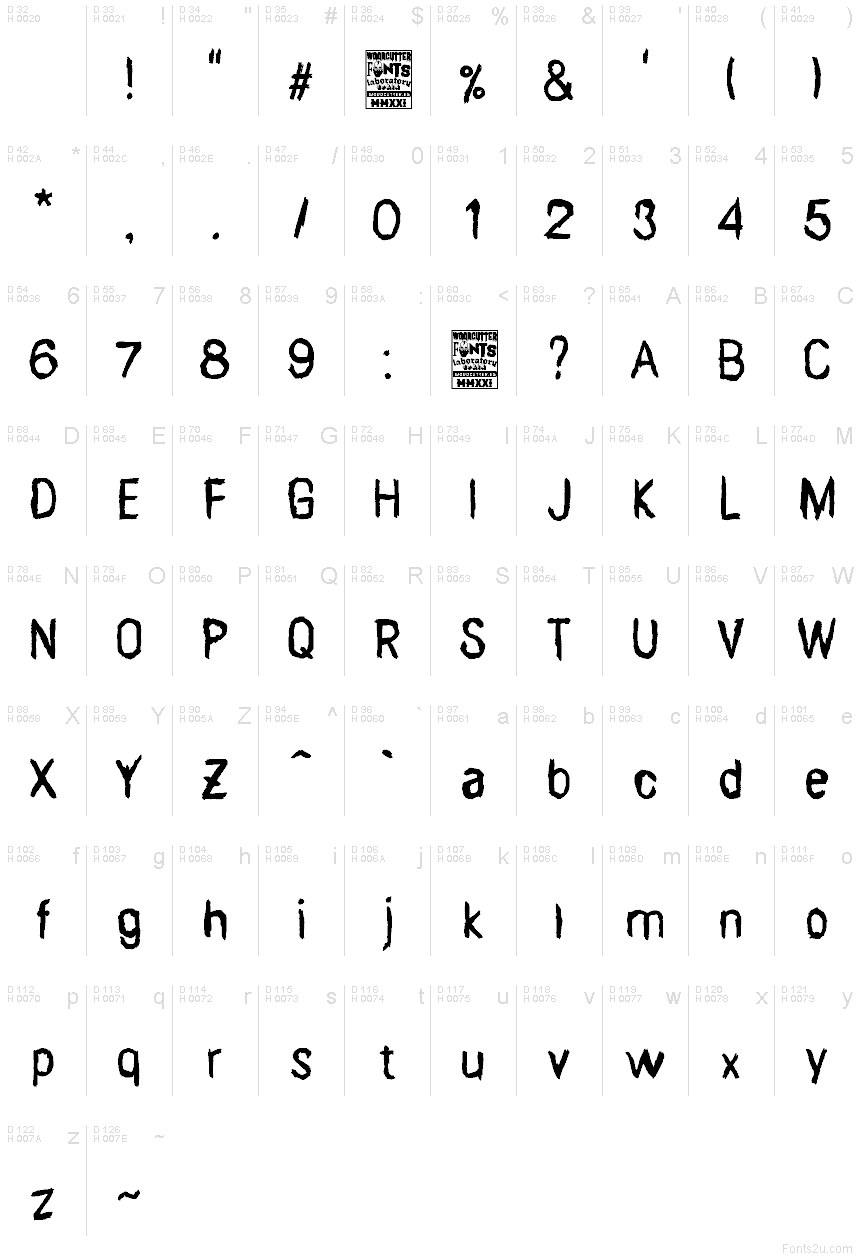
Stigma Poster
Stigma Poster font a free brush textured font by Woodcutter, natural, and organic feel with a distressed quality that evokes a sense of edginess and rawness. While the letters appear irregular, something akin to strokes drawn in charcoal, this feature grants all texts an urban underground look that makes them stand out.
Suitable for posters especially those related to music concerts or festivals, movie titles and end credits related to the horror or thriller genre; i.e: Halloween theme projects. Other brilliant use cases involve product packaging (bottle labels), logo design, signage, social media posts etc.